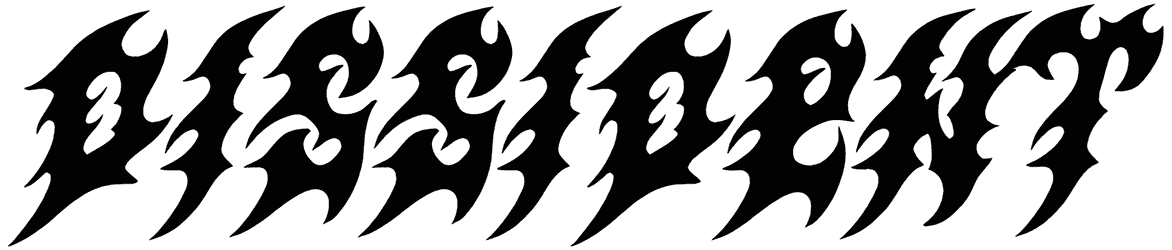
FairydustB Font
If you are looking for a medieval gothic font, you will enjoy this specific one that has a horror style to its spectacular design. The bold, jagged characters of FairydustB have aggressive, forceful edges and sharp, slim swash tails; it delivers a vintage, old-fashioned style to your typography.
It included mixed letters, numbers, and punctuation that have been designed to perfection. You might find this witch font useful for tattoos, books, games, movies, and wherever you have in mind or wish to display your imagination!
Designed by: Marcel de Jong